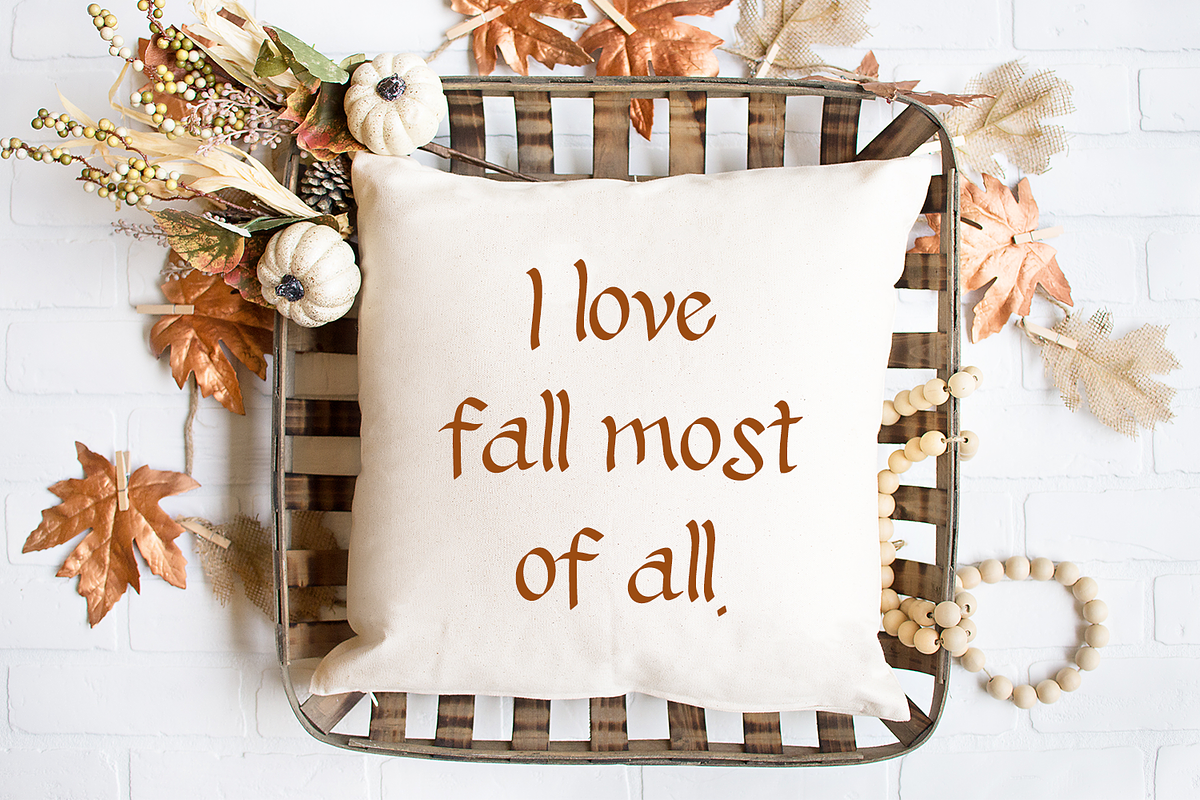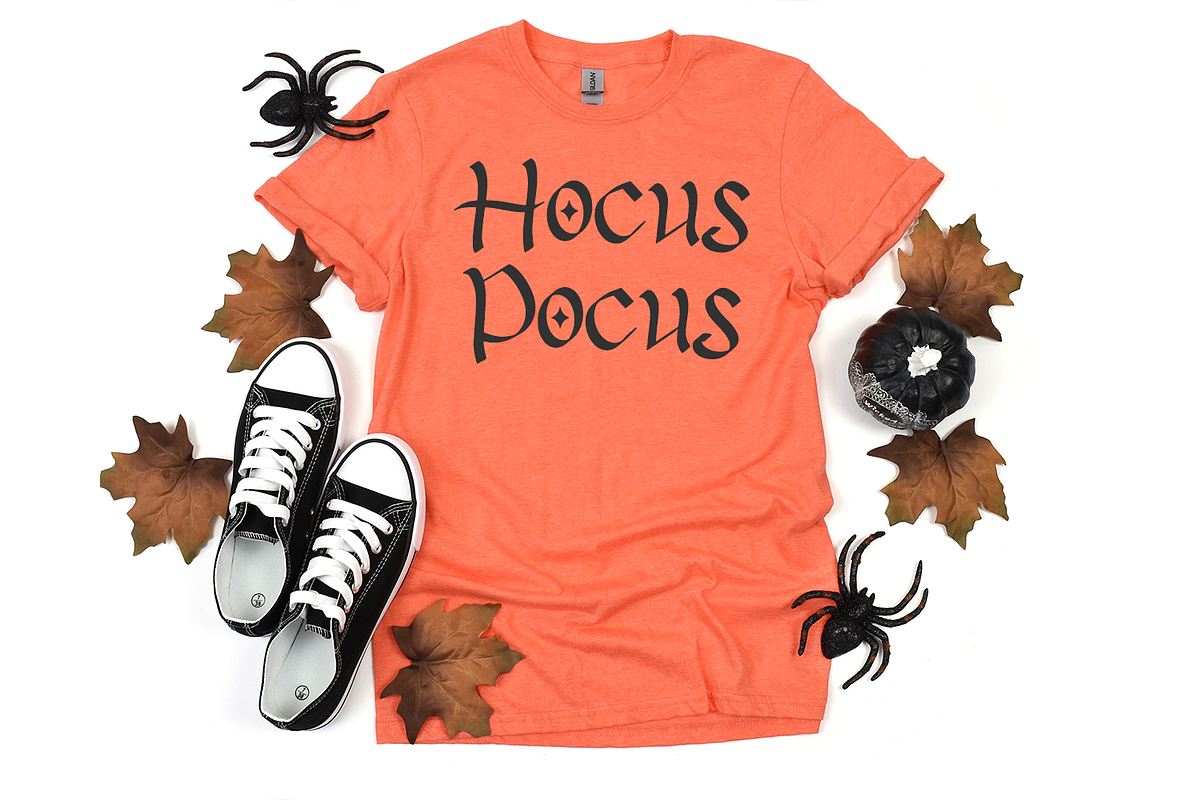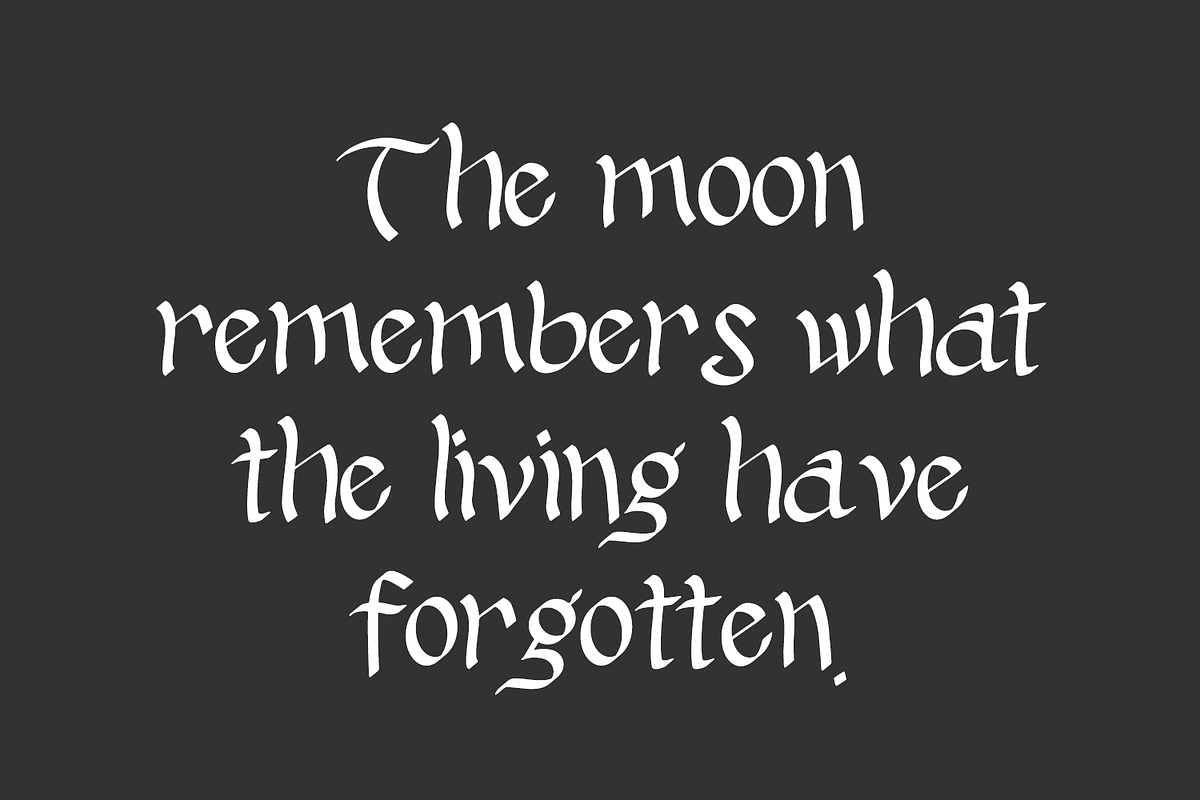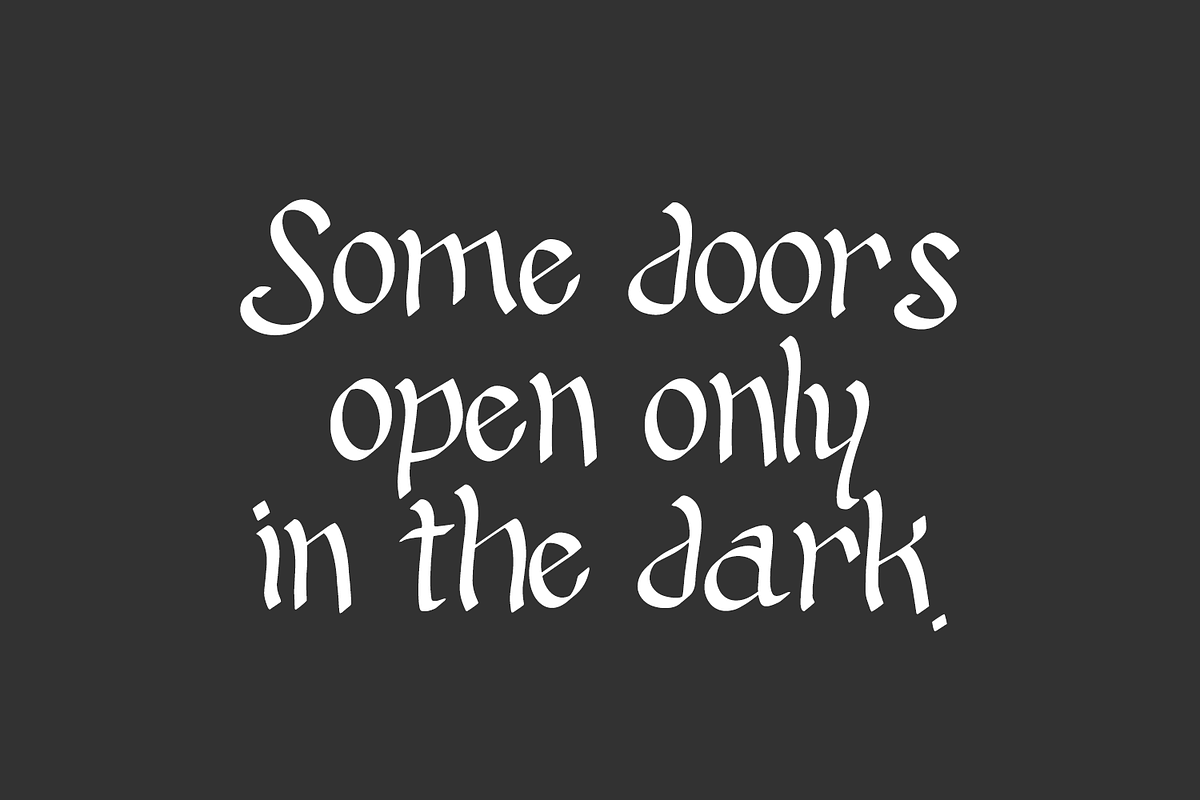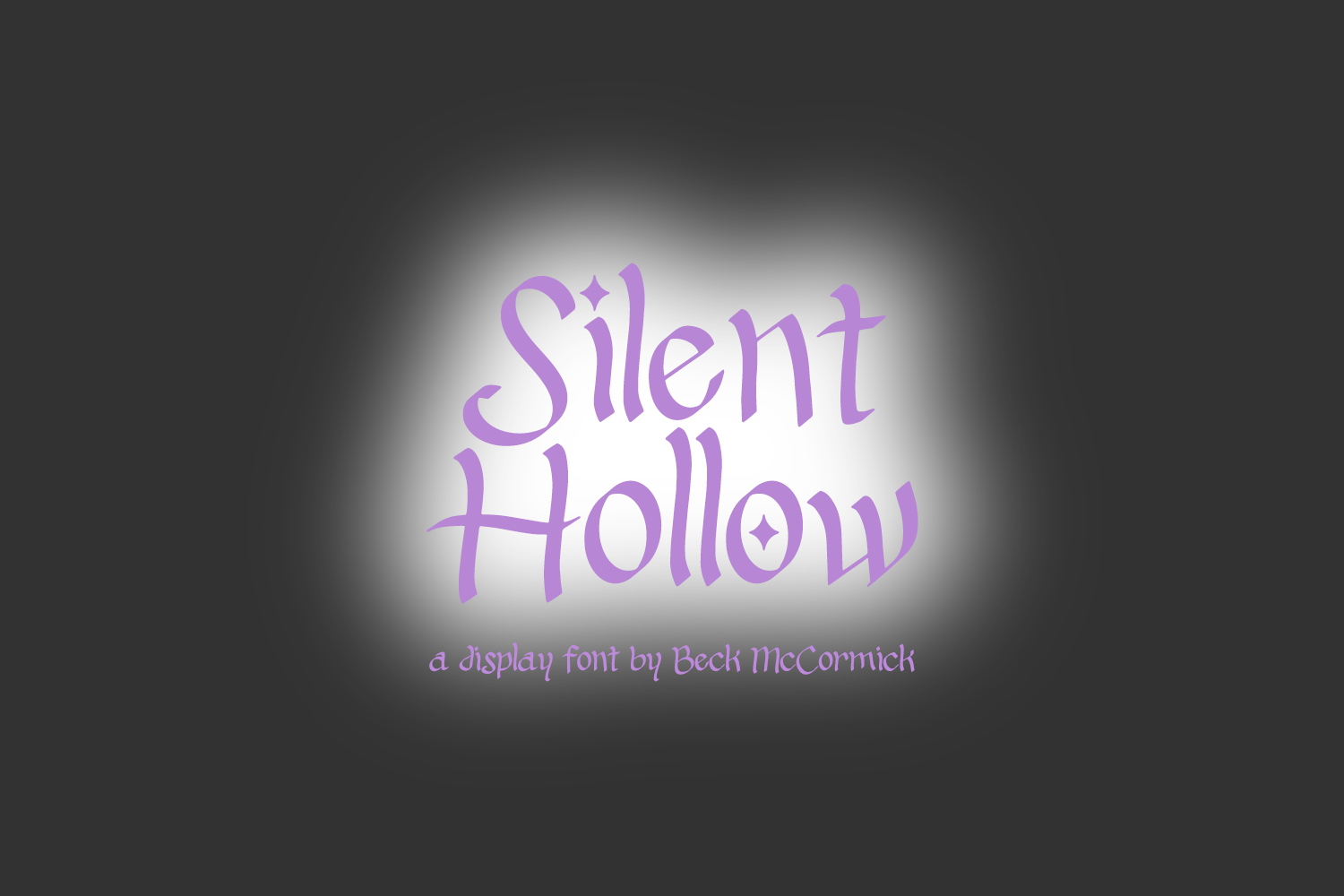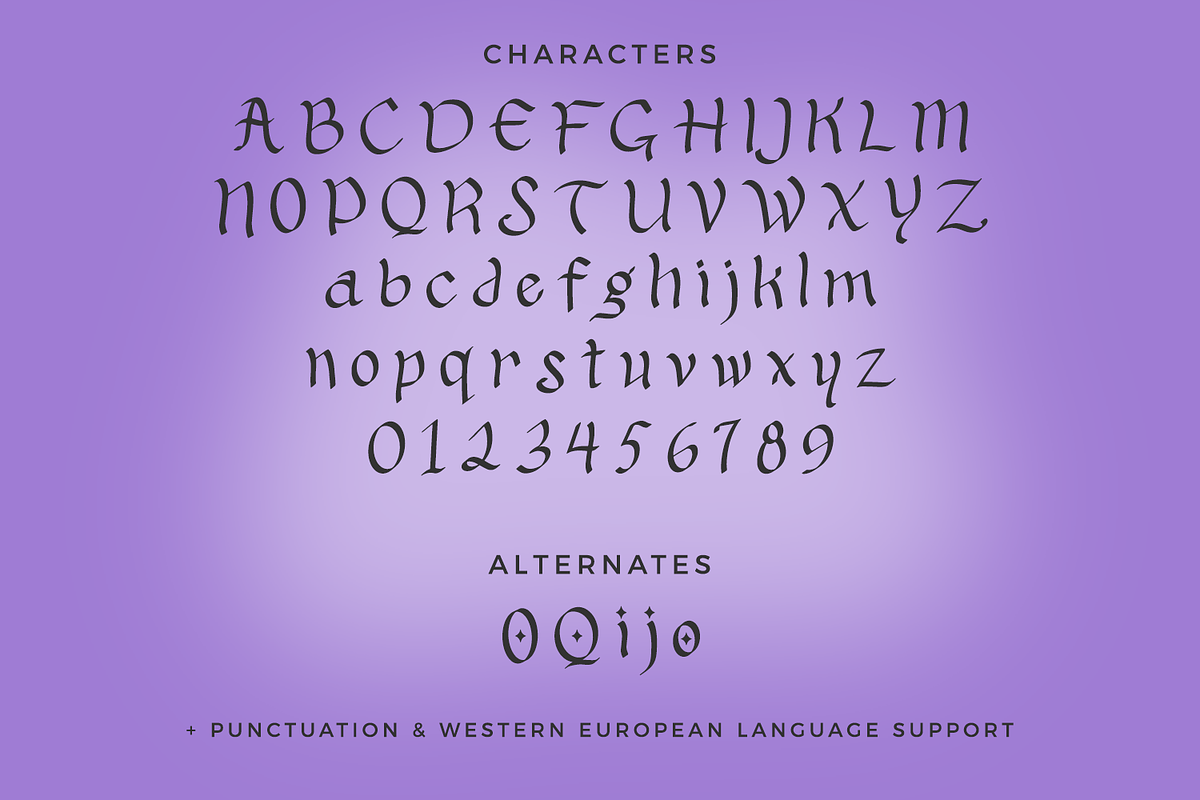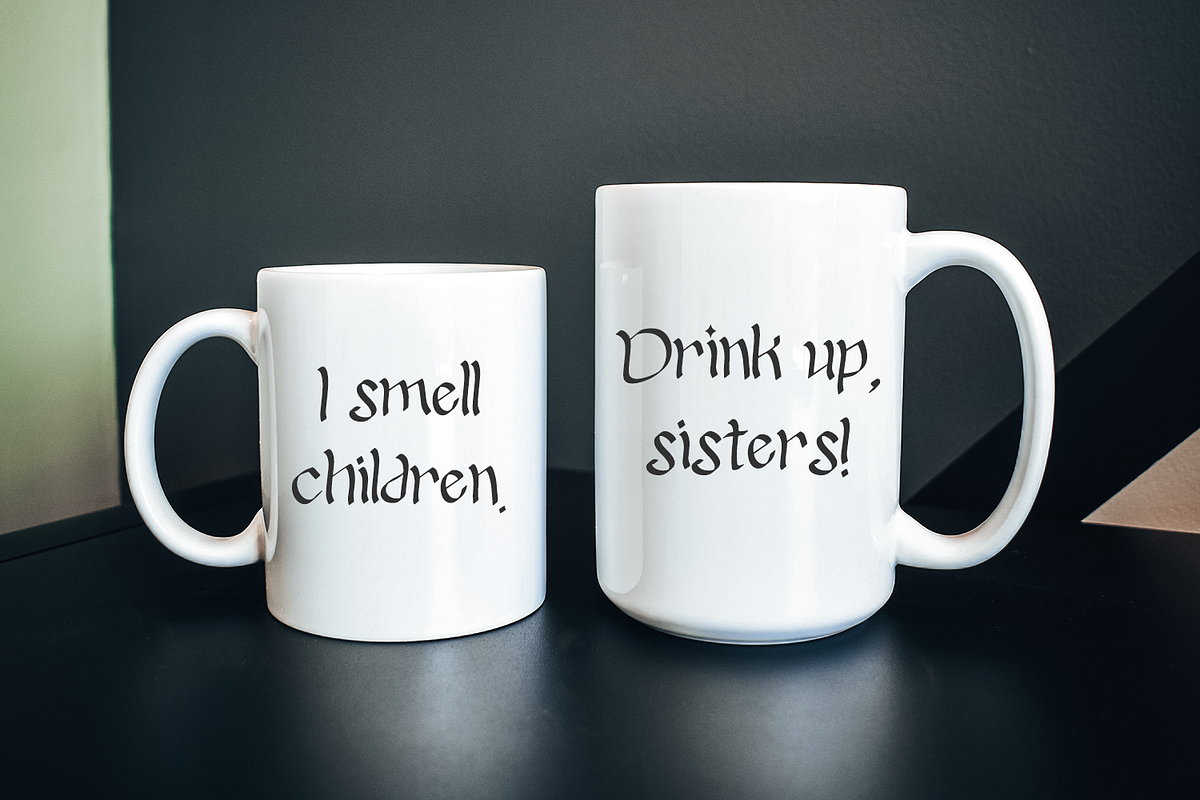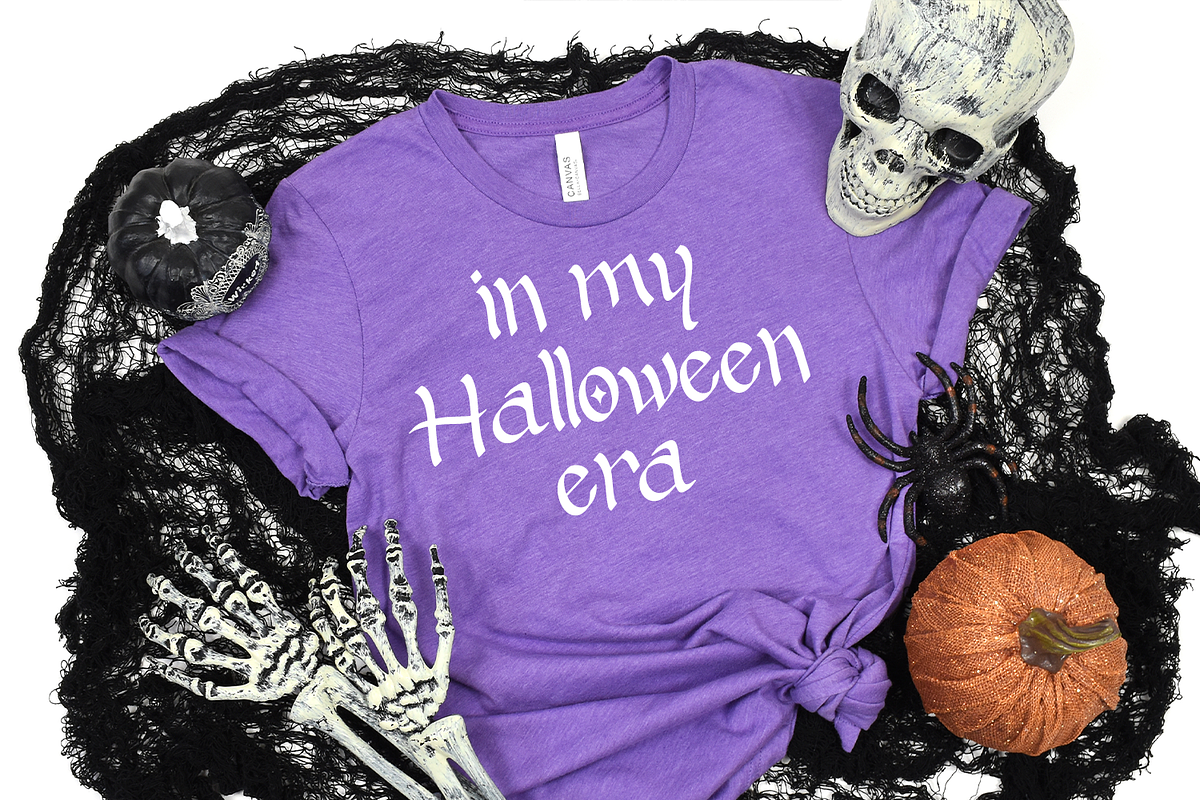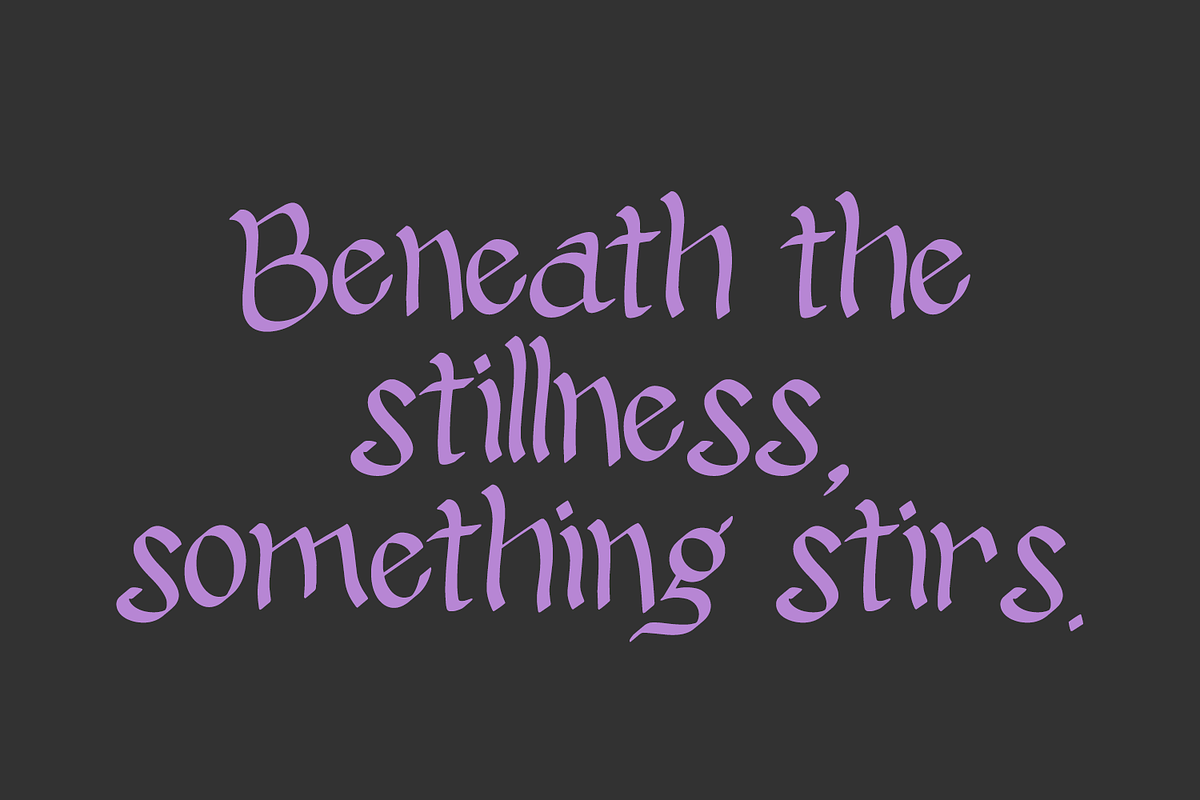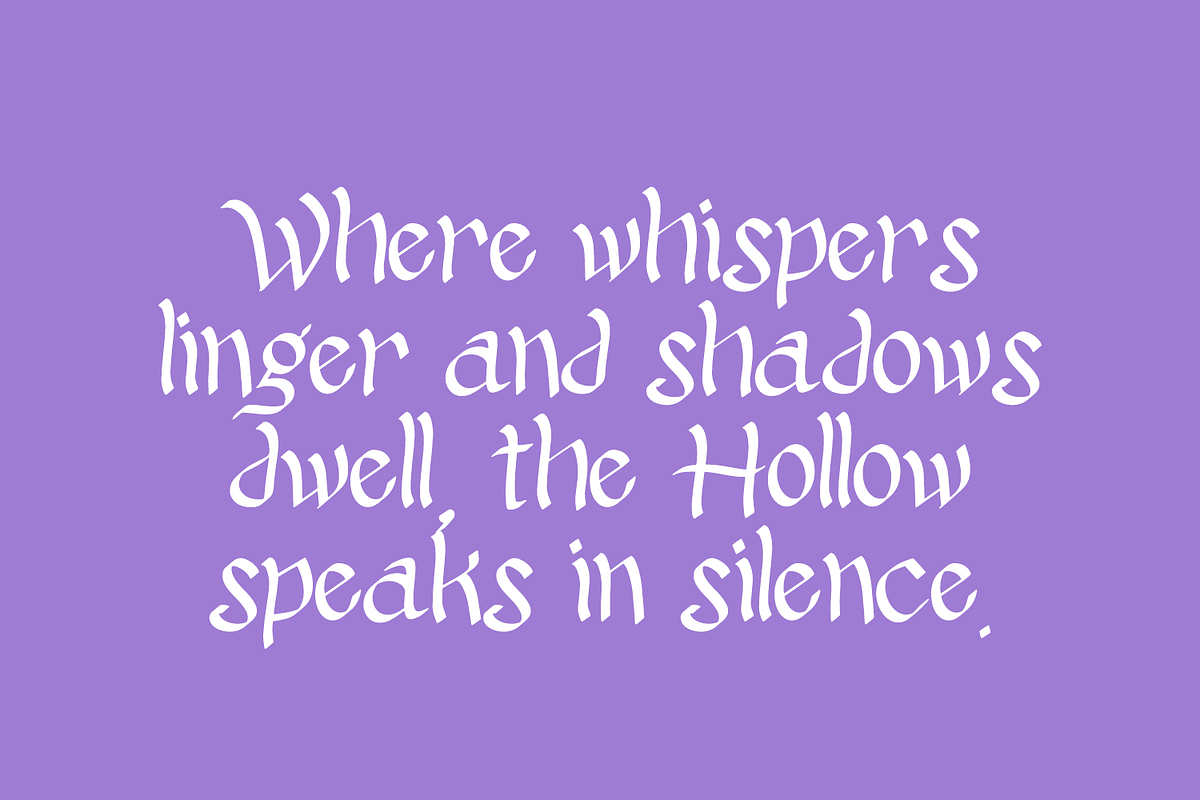
Silent Hollow - A Display Font
Introducing Silent Hollow, a display font. Silent Hollow is a fantastic fit for your scary & ominous designs. This font is well-suited for Halloween crafting projects with your Cricut or Silhouette machine, and can be used for things like shirts, signs, labels, marketing materials, social media, SVG designs, greeting cards & other print items, and even spooky logos & branding.
Silent Hollow includes:
- full upper + lowercase characters
- numbers + punctuation
- PUA-encoding
- 5 alternates with stars - O, Q, i, j, o
- Western European language support - English, French, Spanish, Portuguese (Brazil), Portuguese (Portugal), Italian, German (Germany), German (Austria), Dutch, Danish, Swedish, Norwegian (Bokmål and Nynorsk), Finnish, Icelandic, Irish, Welsh